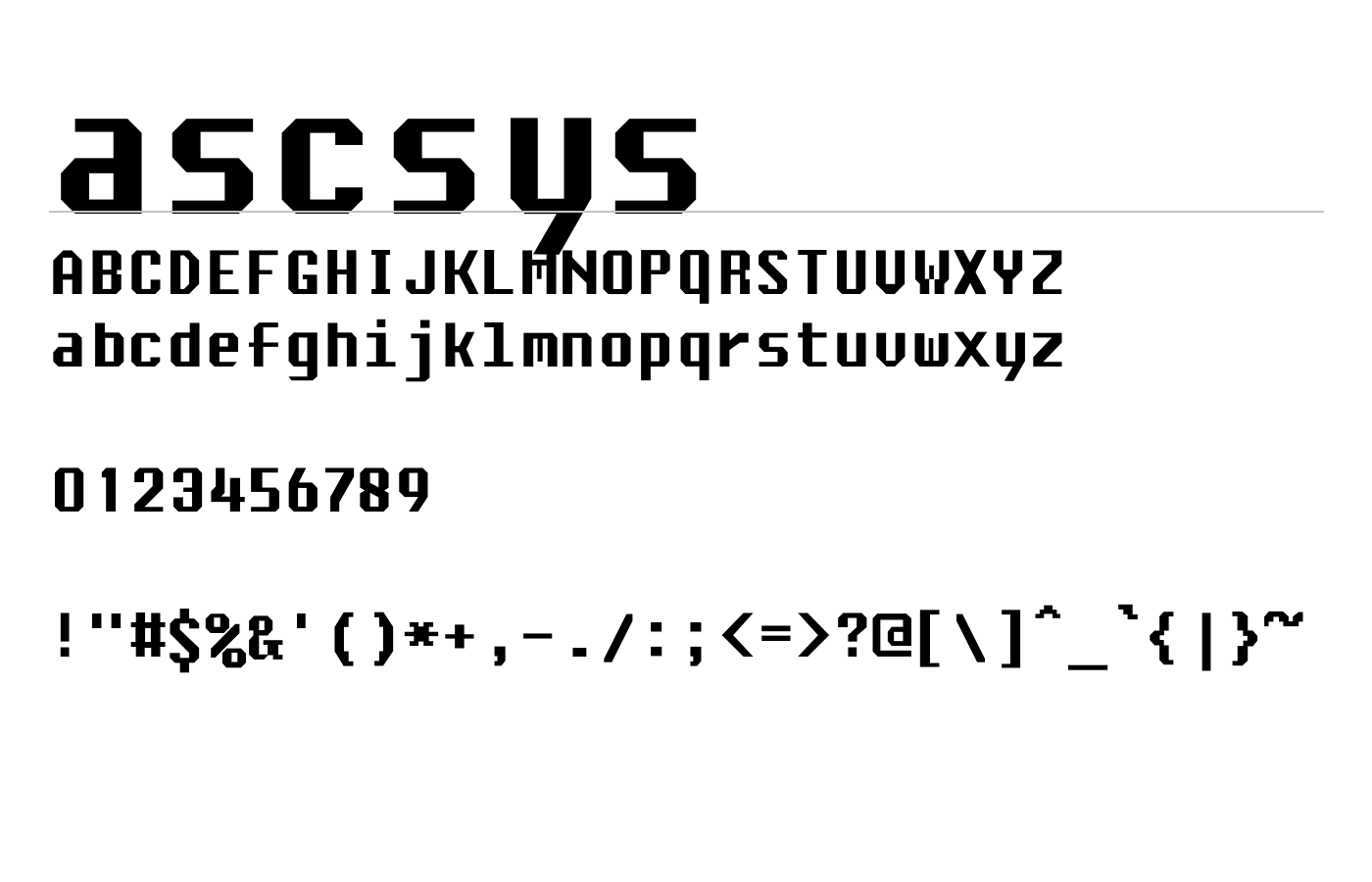
Ascsys is a bold, geometric sans serif font with a condensed width and a strong, technical appearance. Its blocky letterforms feature sharp, straight edges and consistent stroke weight, giving it a modern, industrial feel that suits tech, gaming, or futuristic branding. This font works best for headlines, logos, and projects where a bold, engineered look is desired.
ascsys Font
About ascsys Font